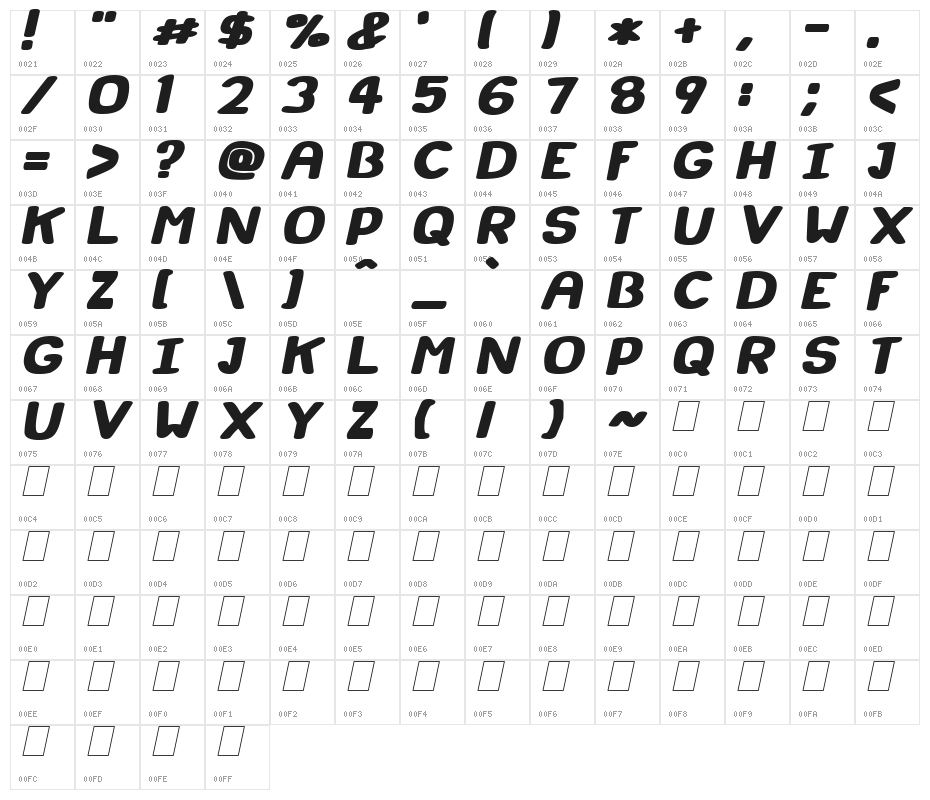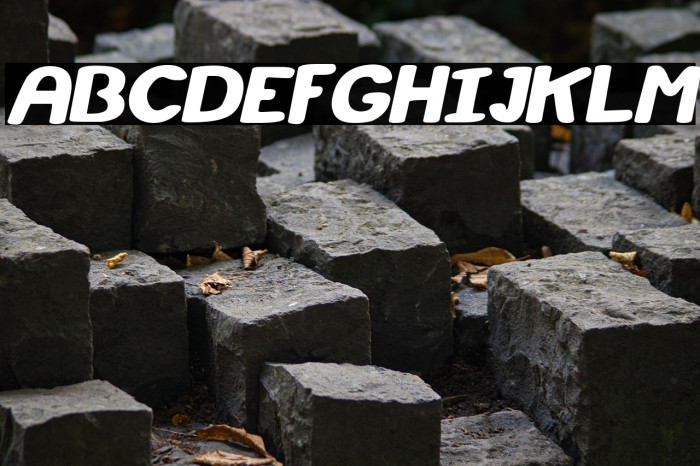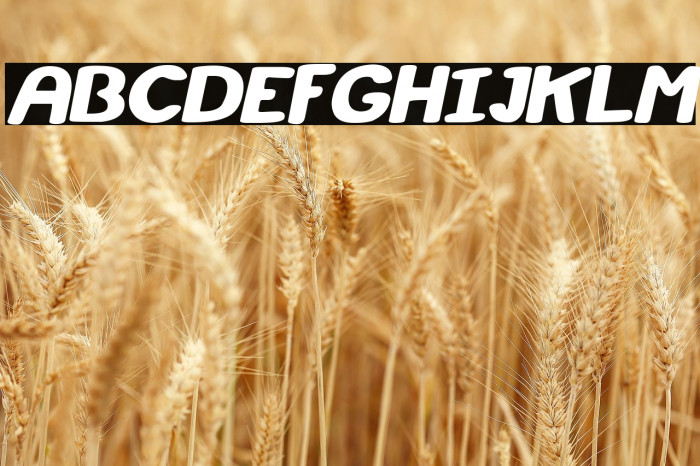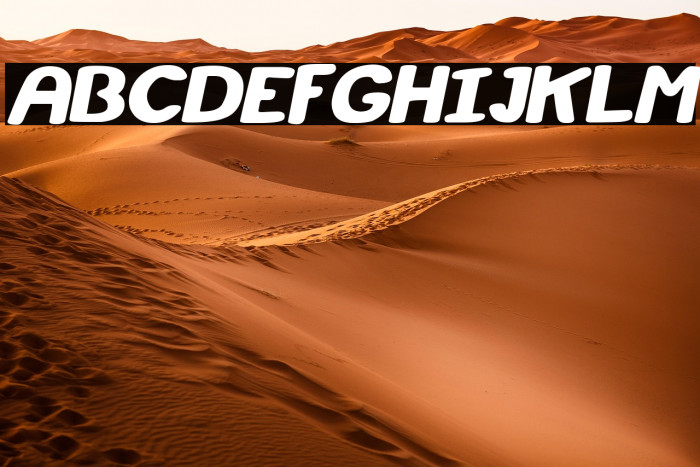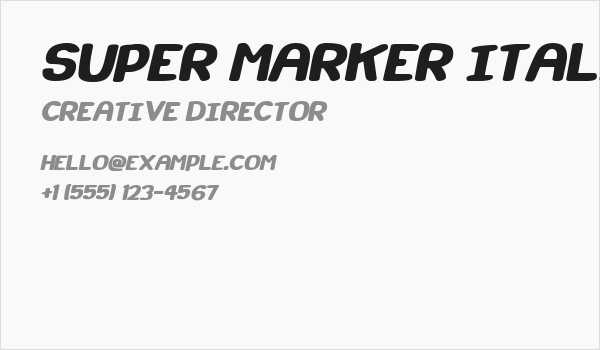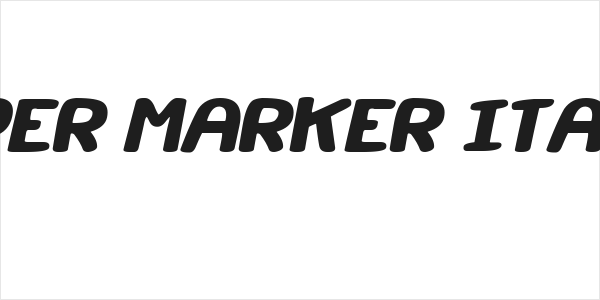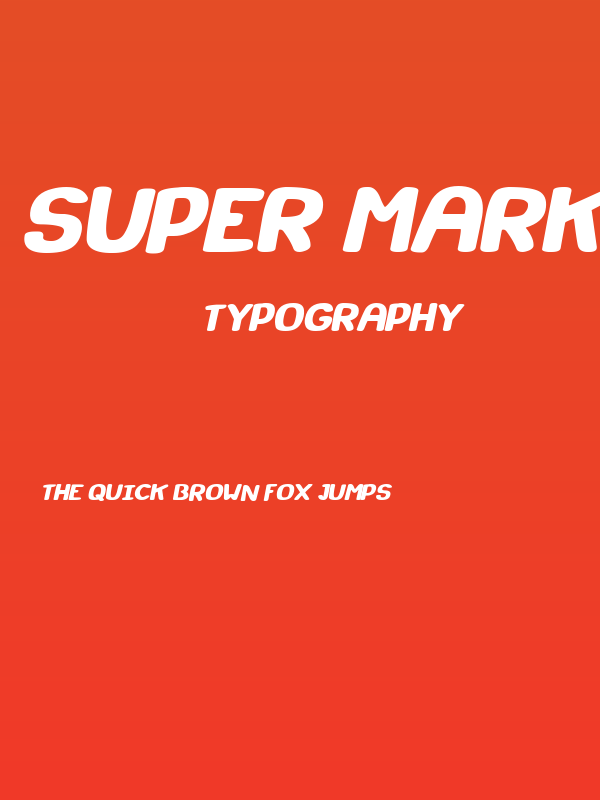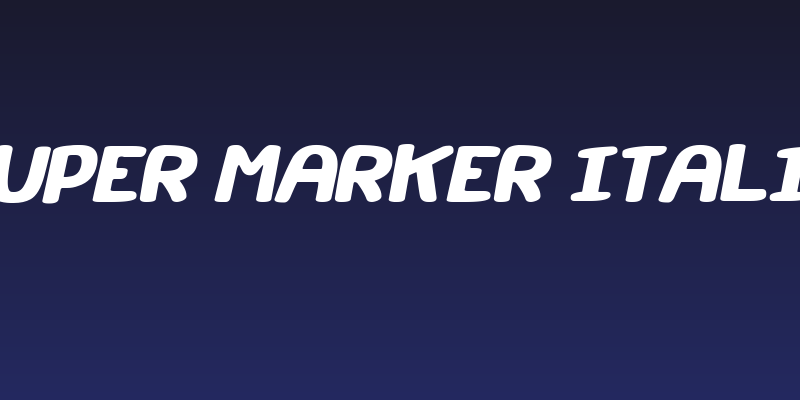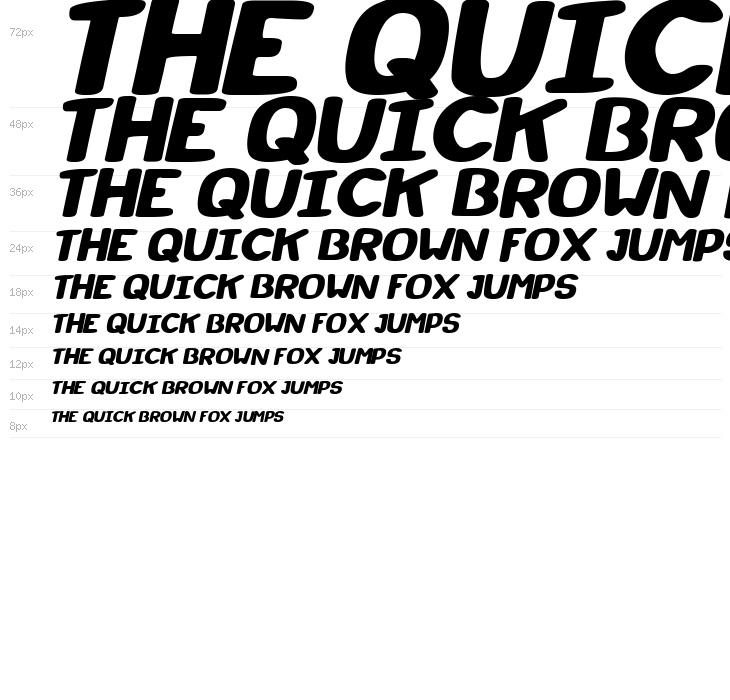
Super Marker Italic Font
Super Marker Italic Description
This font features a bold and dynamic style with a playful, handwritten appearance. The characters are slightly slanted, giving it an italicized look that adds a sense of motion and energy. The strokes are thick and rounded, contributing to a friendly and approachable feel. The spacing between characters is tight, which enhances the cohesive and unified appearance of the text. This font is well-suited for projects that require a casual and informal tone, such as children's books, playful branding, or creative posters.
| Proposed Projects | Ideal for children's books, playful branding, creative posters, and informal invitations. |